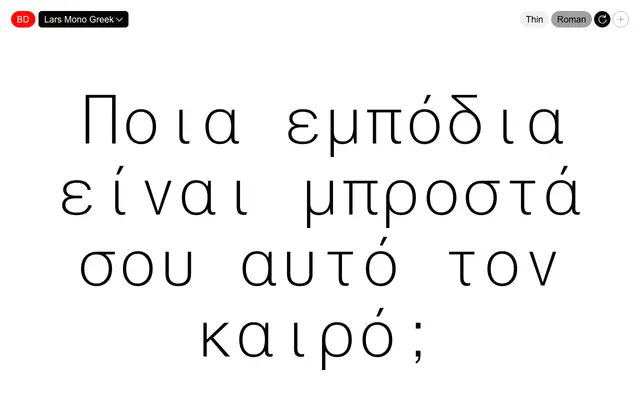
Lars Mono Greek
A thin-weight monospaced typeface from Bold Decisions with Greek script support.
Lars Mono Greek extends monospaced type into Greek script territory, offered here in a single Thin Roman weight. The combination of a monospaced structure with Greek coverage suits technical and multilingual contexts where consistent character spacing is required. Bold Decisions present it as part of the broader Lars family.
The name explicitly identifies this as a monospaced typeface with Greek script support, placing it firmly in the mono category.